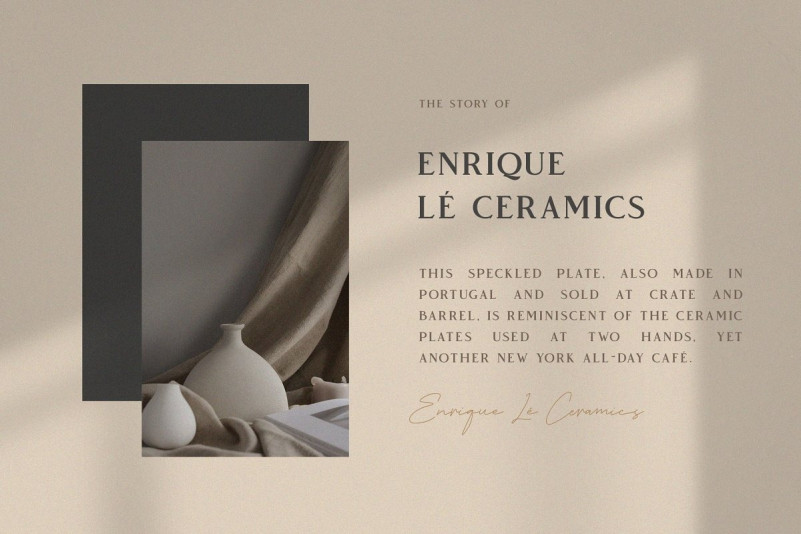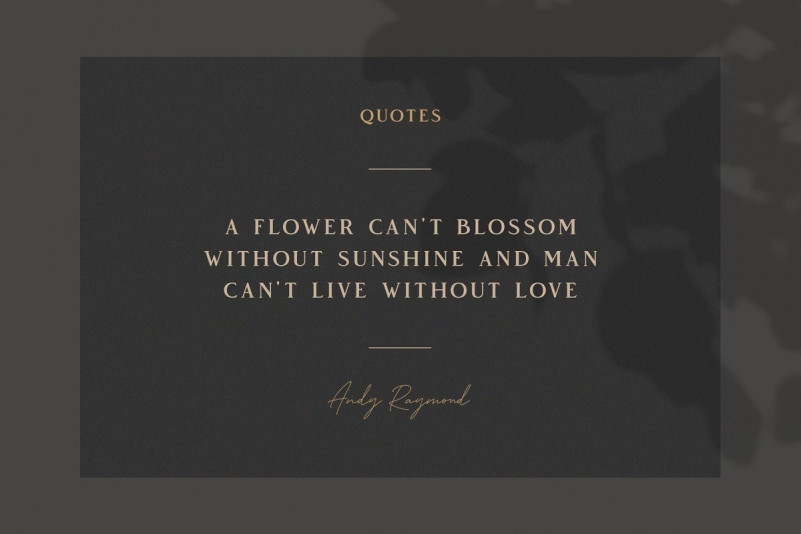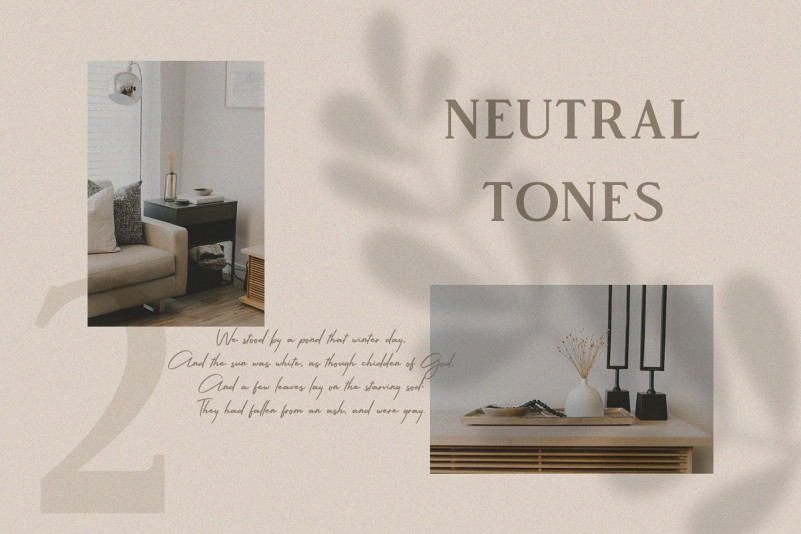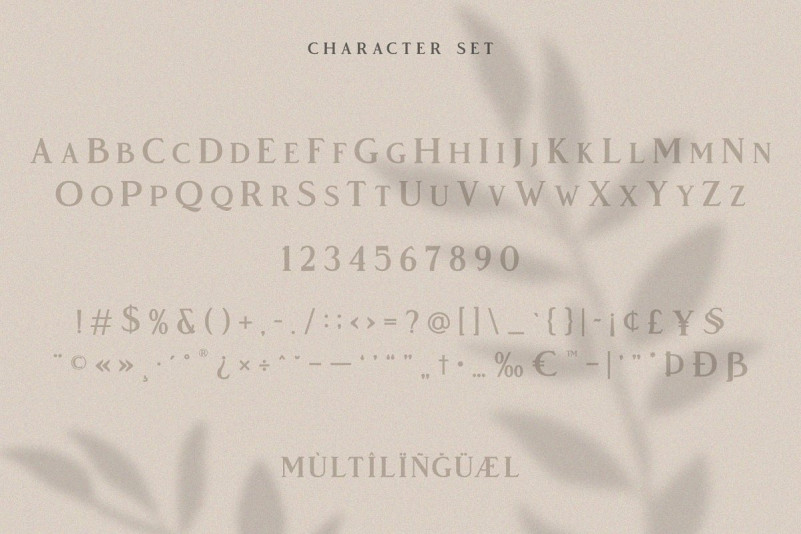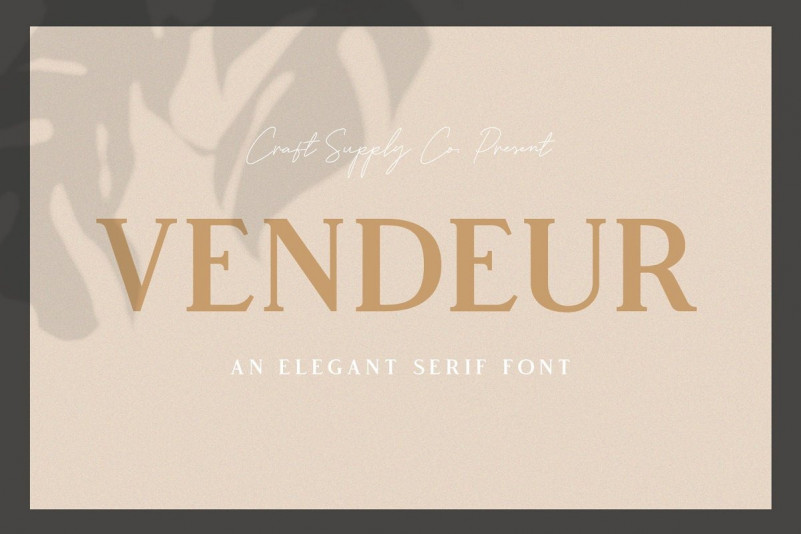
Vendeur Serif Font
Say Hello Guy’s. Thank you for looking Vendeur Font. This an elegant serif font. It is a bold and bold serif font. It is perfect for designers looking to leave an impression. A simple but significant, perfect for feminine and minimal design. The owner of endless possibilities. It’s a modern serif font family whose design refers us to the style of modern serif. The distinctive features of Vendeur – Elegant Serif Font are the relatively low contrast of strokes, the slightly squarish shapes of round characters and the emphasized business like simplicity. It’s also suitable for art, modern envelope lettering or book design, happening style like handdrawn design or watercolor design theme, craft design, any DIY project, book title, wedding font, pop vintage design, or any purpose to make our art/design project look pretty and trendy.